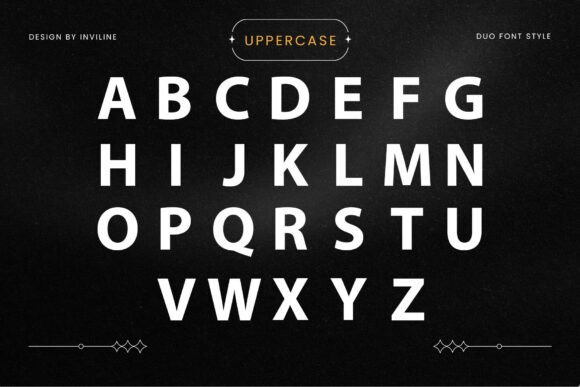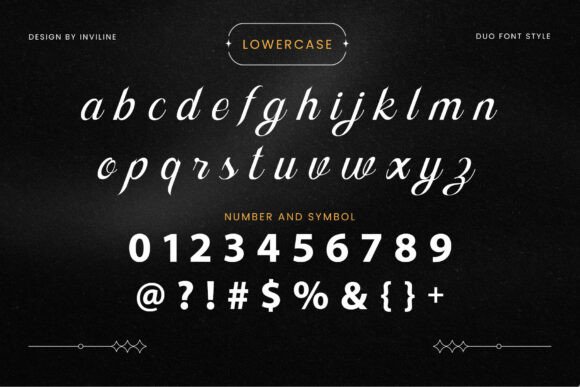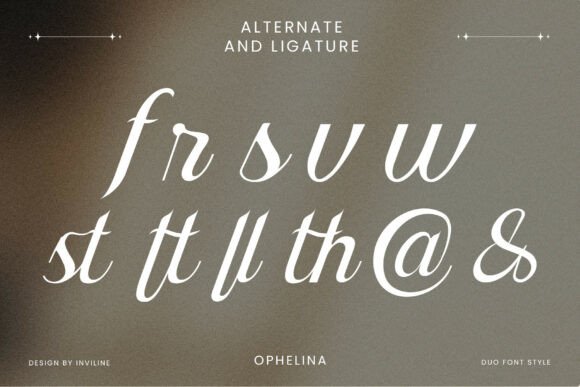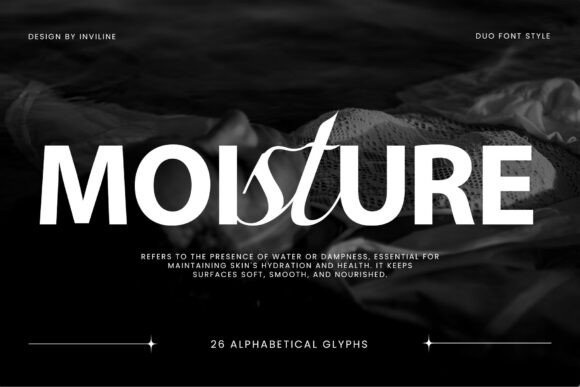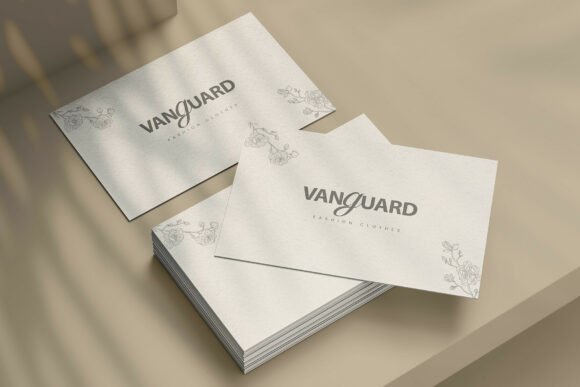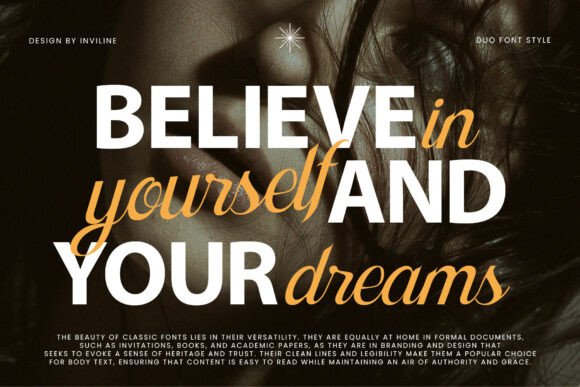
Introduction to Ophelina Font
Have you ever stared at a blank page, struggling to find the perfect font to bring your creative project to life? The search for the ideal typeface can be a daunting task, especially when you’re working on a high-quality design that demands attention to detail. But what if you stumbled upon a font that effortlessly combines modern sophistication with timeless elegance?
Enter the Ophelina Font, a stunning typeface pairing that has become a go-to design resource for creatives seeking a sophisticated balance. With its refined curves and versatile contrast, Ophelina Font brings a touch of high-end charm to any creative layout, making it a valuable addition to your design arsenal. Whether you’re working on a fashion branding project, crafting wedding invitations, or designing a chic logo, Ophelina Font is sure to elevate your design to the next level.
Key Features of Ophelina Font
- High-quality design resource for creative projects, featuring a beautiful and elegant script style.
- Includes a range of characters, including uppercase and lowercase letters, as well as punctuation marks and symbols.
- Designed to be highly legible, even at small font sizes, making it ideal for titles, headings, and other display text.
- Features a unique and stylish design, perfect for adding a touch of sophistication to any creative project.
Honest Review: Ophelina Font
I recently had the chance to work with the Ophelina Font for a creative project, and I must say, it’s a great addition to any designer’s arsenal. One of the standout features of this font is its high quality and versatility, making it perfect for a variety of design tasks. Whether you’re working on a logo, branding, or digital design project, the Ophelina Font is sure to deliver.
- ✨ Beautiful, elegant script style that adds a touch of sophistication to any design
- ✨ High quality and crisp typography that’s perfect for digital and print design
- ⚠️ Limited font weights and styles, which may limit its use in certain design contexts
- ⚠️ May not be suitable for very large or small font sizes, as it can become difficult to read
Overall, I’m impressed with the Ophelina Font and would definitely recommend it as a design resource. Its high quality and versatility make it a valuable addition to any designer’s toolkit.
Ophelina Font
Ophelina Font is a high-quality design resource that can elevate your creative project to the next level. With its unique style and transparent background, it’s perfect for designers who want to add a touch of sophistication to their work.
Tips for Getting the Most Out of Ophelina Font
For the best results, use Ophelina Font with a high-quality image or design. You can also experiment with different font sizes and colors to create a unique look.
Ophelina Font is perfect for use in logos, business cards, and other design projects where a high-quality font is needed. It’s also great for creating invitations, menus, and other printed materials.